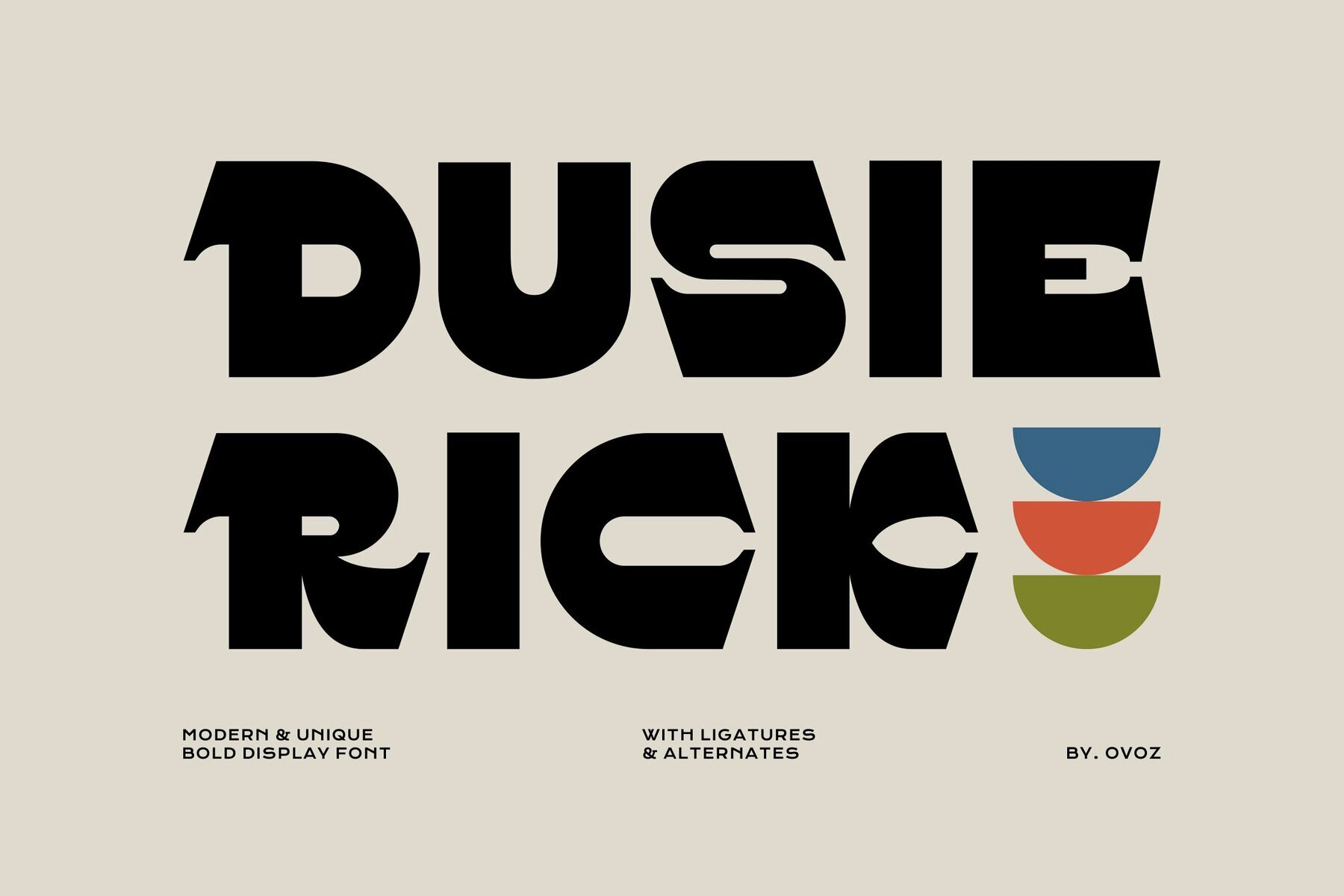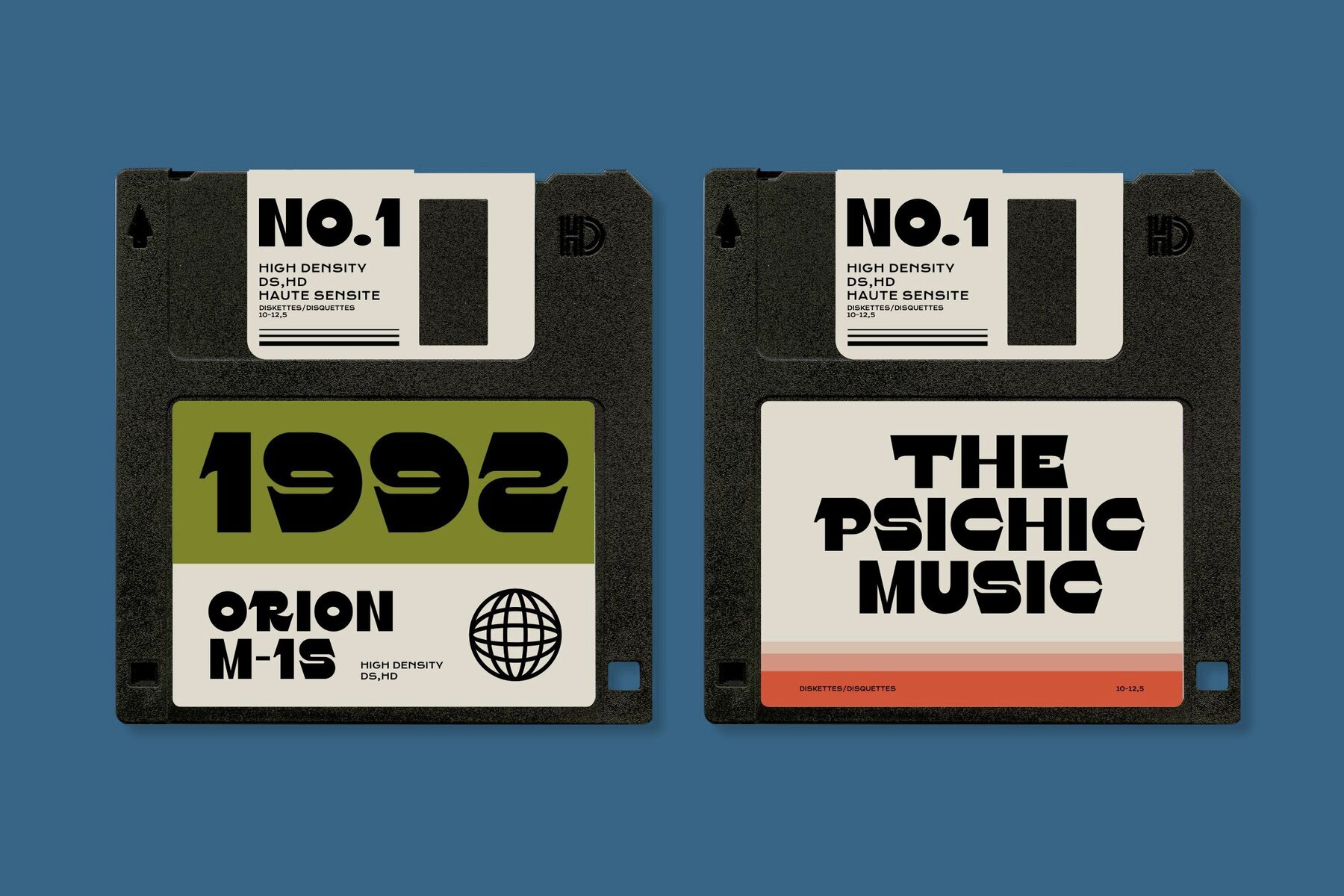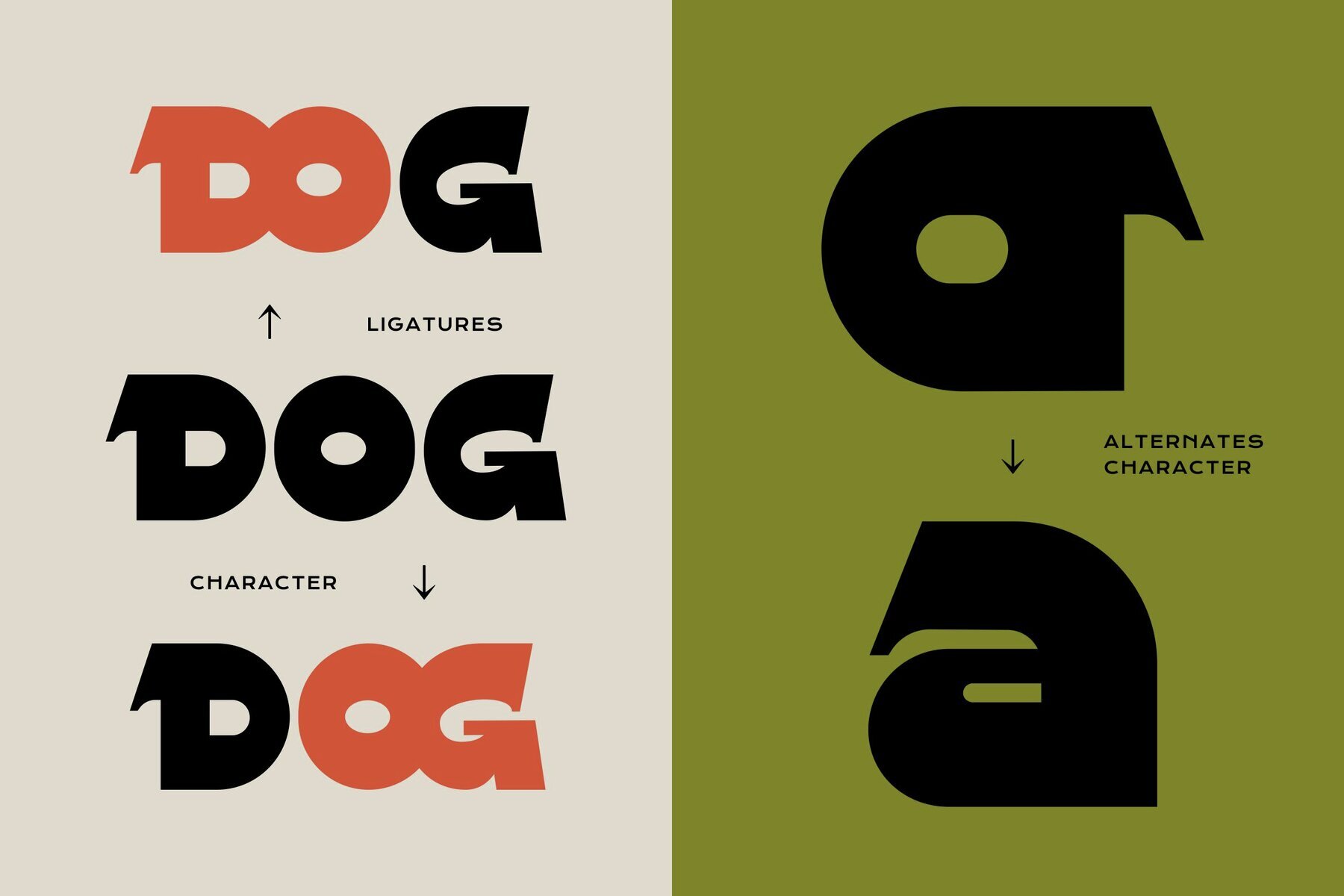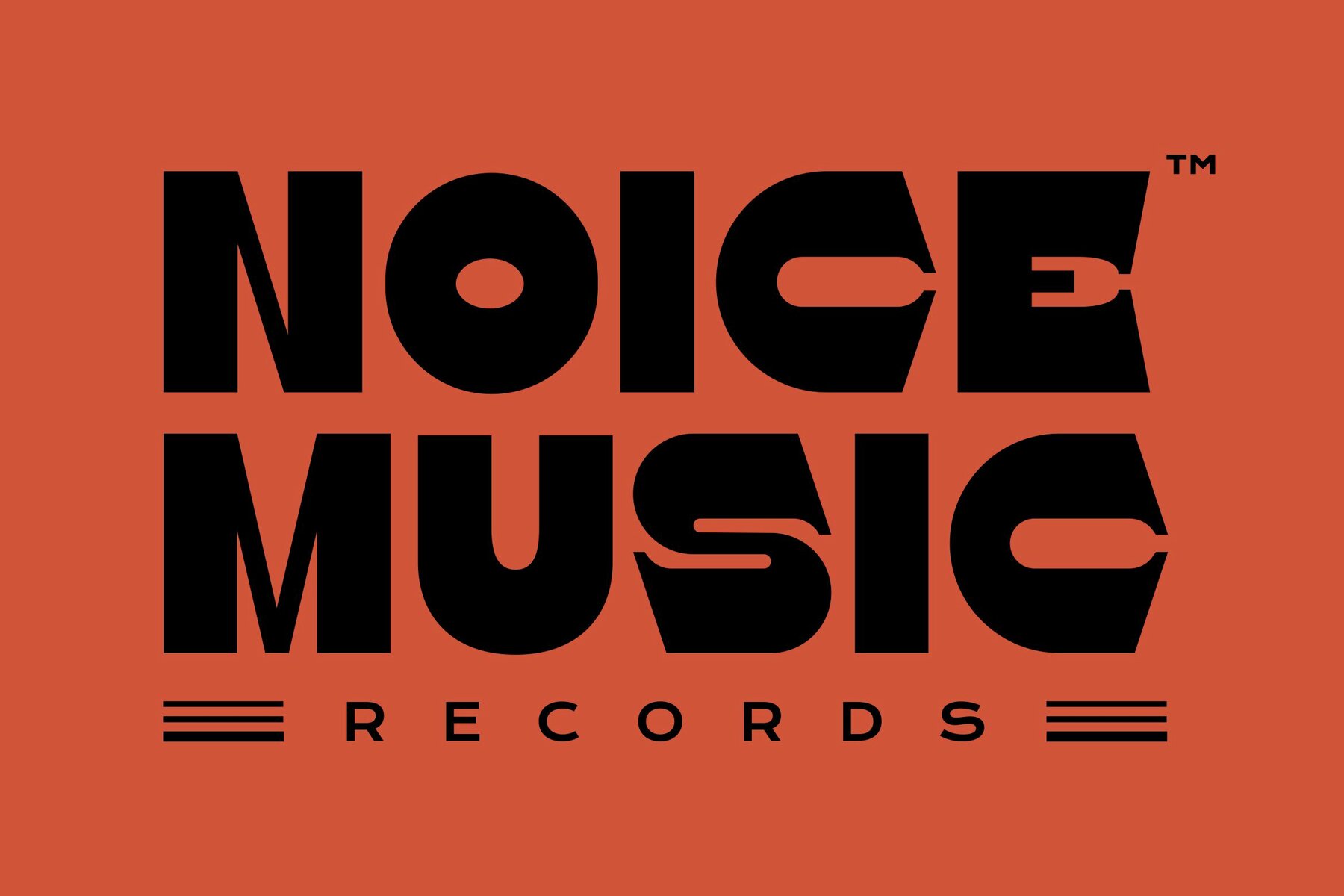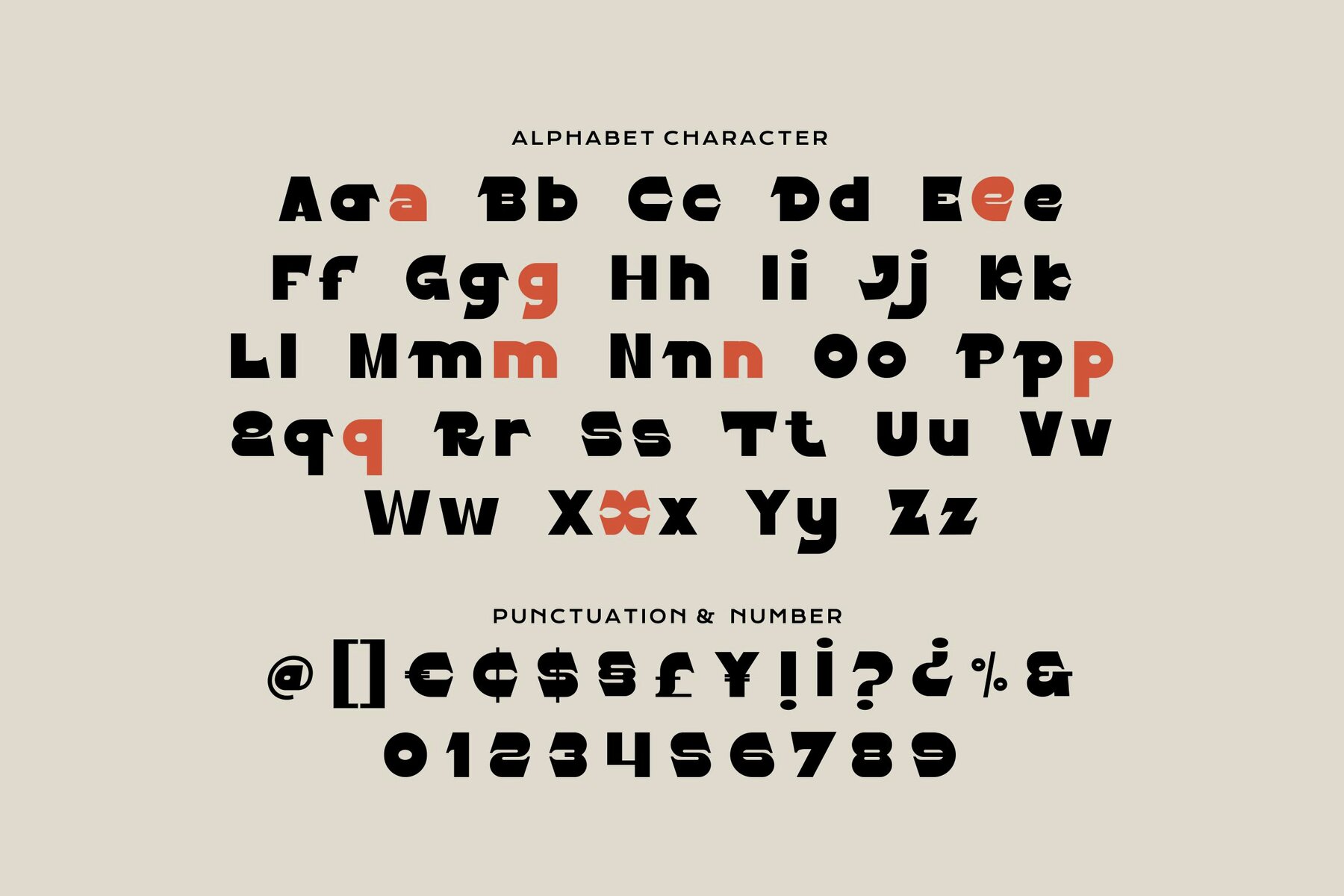
Dusie Rick Font
Dusie Rick Regular
Dusie Rick merges mid-century sensibilities with modern design, resulting in a display font that balances geometric structure and expressive forms. The letterforms combine angular precision and sculptural curves, producing striking headlines and memorable logotypes. Subtle use of negative space introduces a brutalist influence, lending each composition a distinct retro-futurist edge. With its playful yet controlled visual language, Dusie Rick is suited for projects seeking to bridge nostalgic undertones with contemporary flair. The font’s versatility makes it useful across editorial covers, branding suites, and digital campaigns, where distinctive typography becomes a focal point.Dusie Rick: Geometric Display Font With Mid-Century Appeal